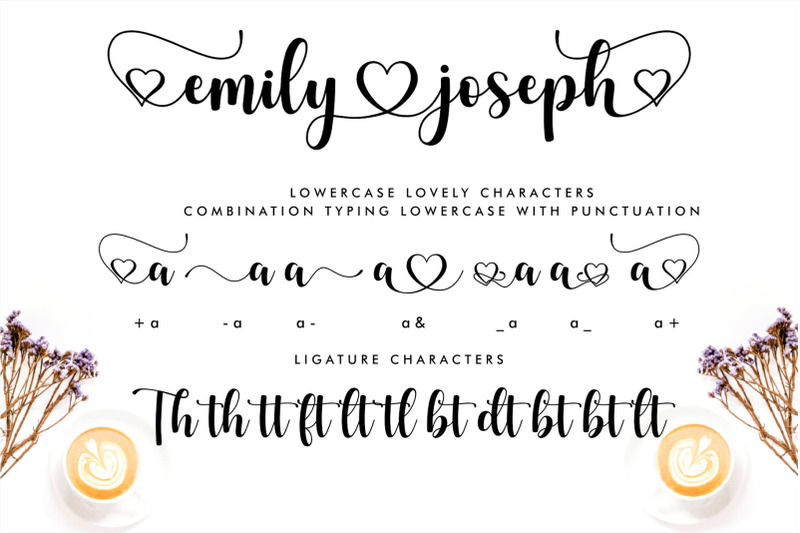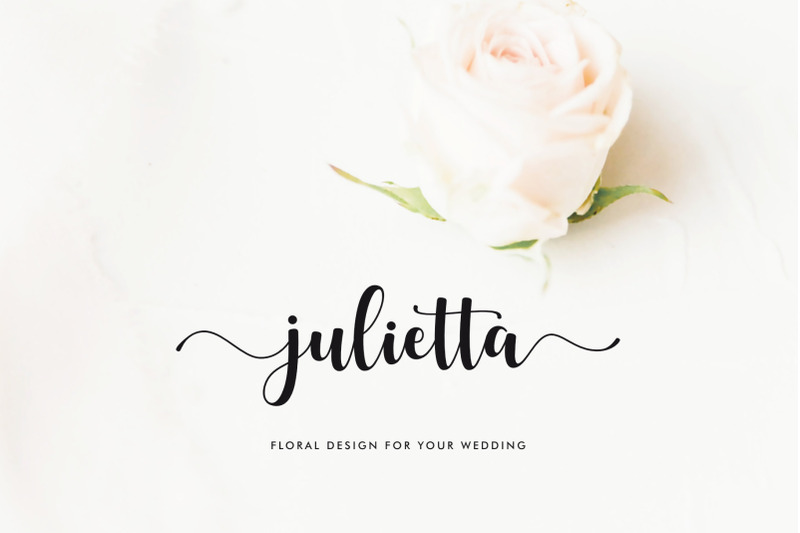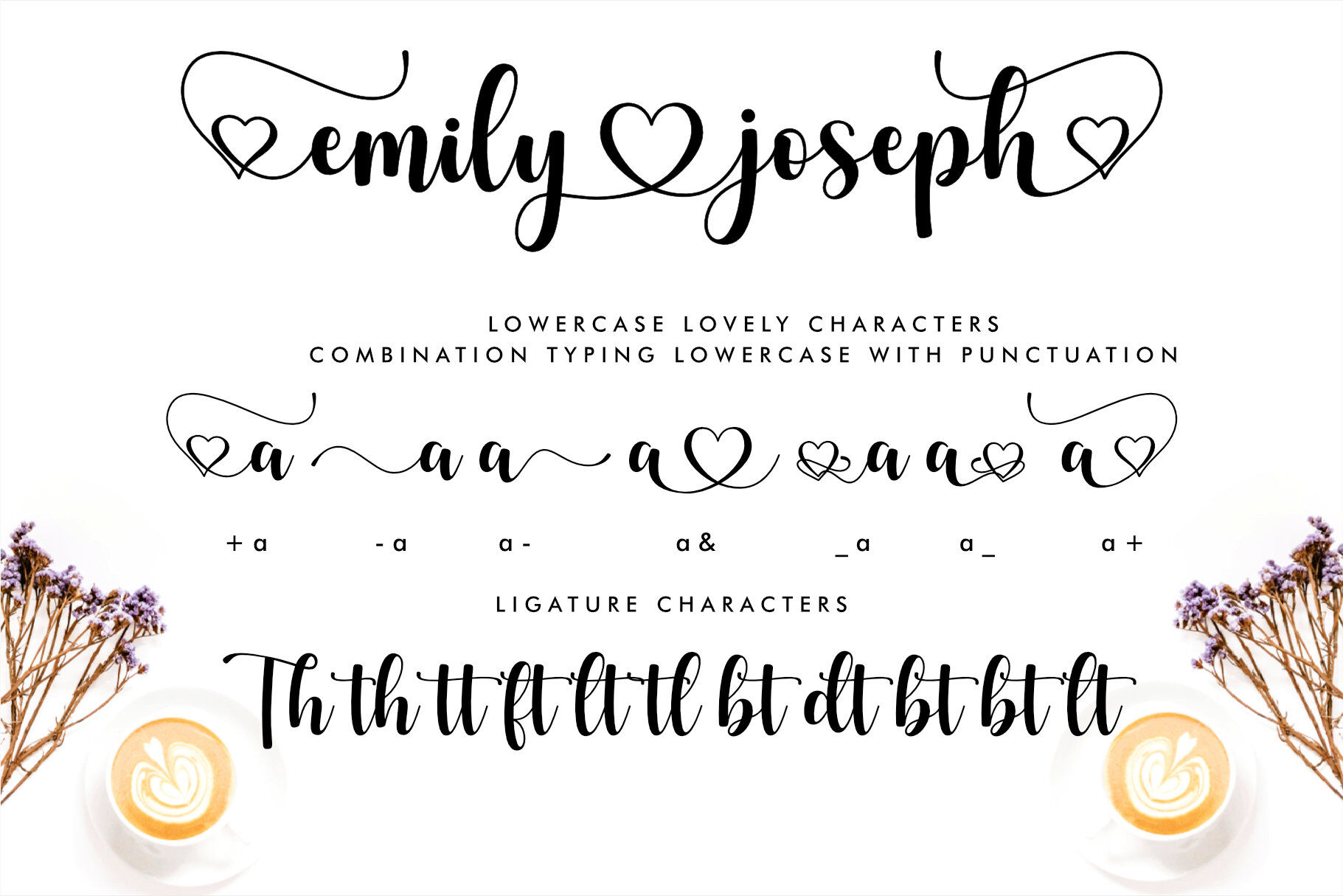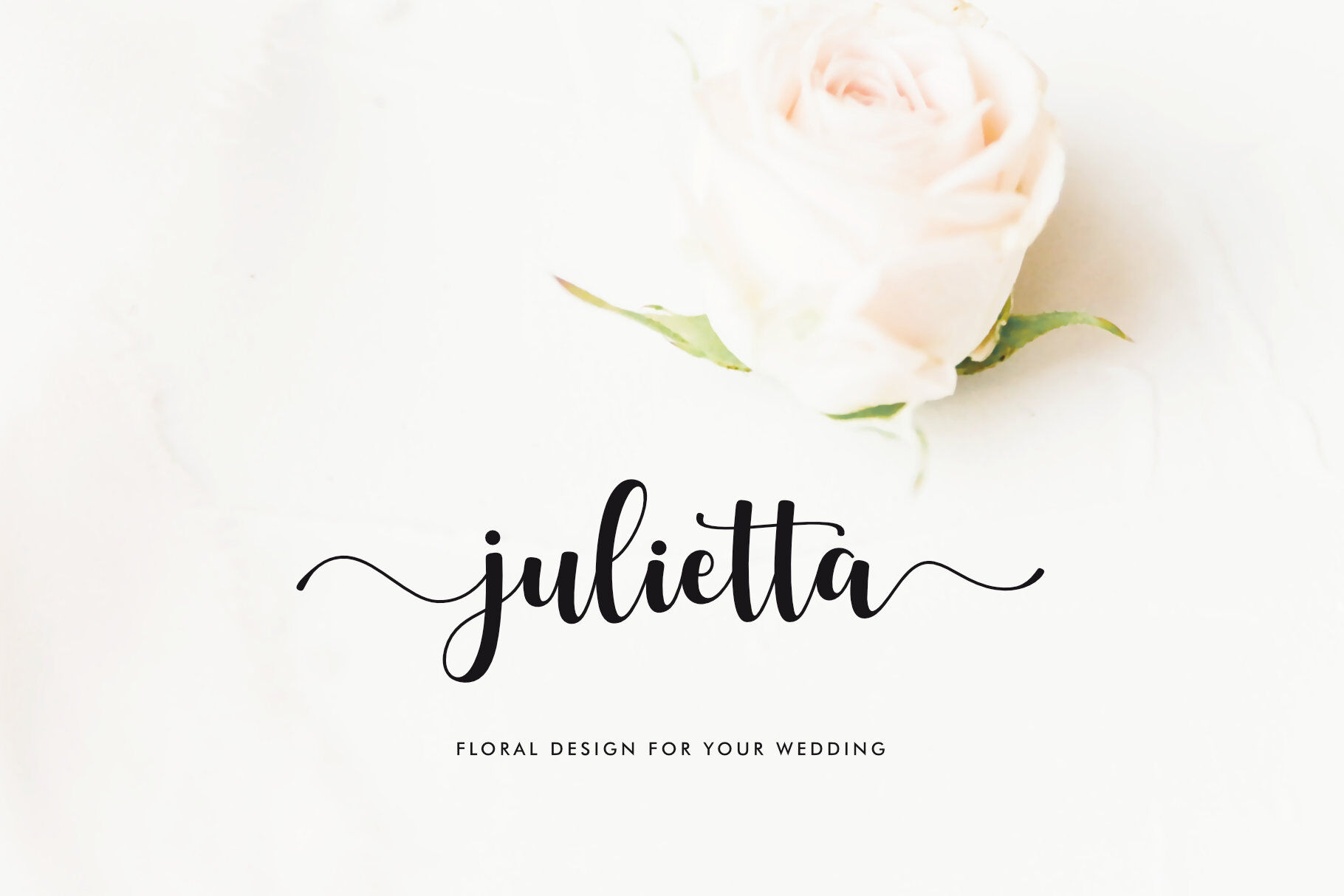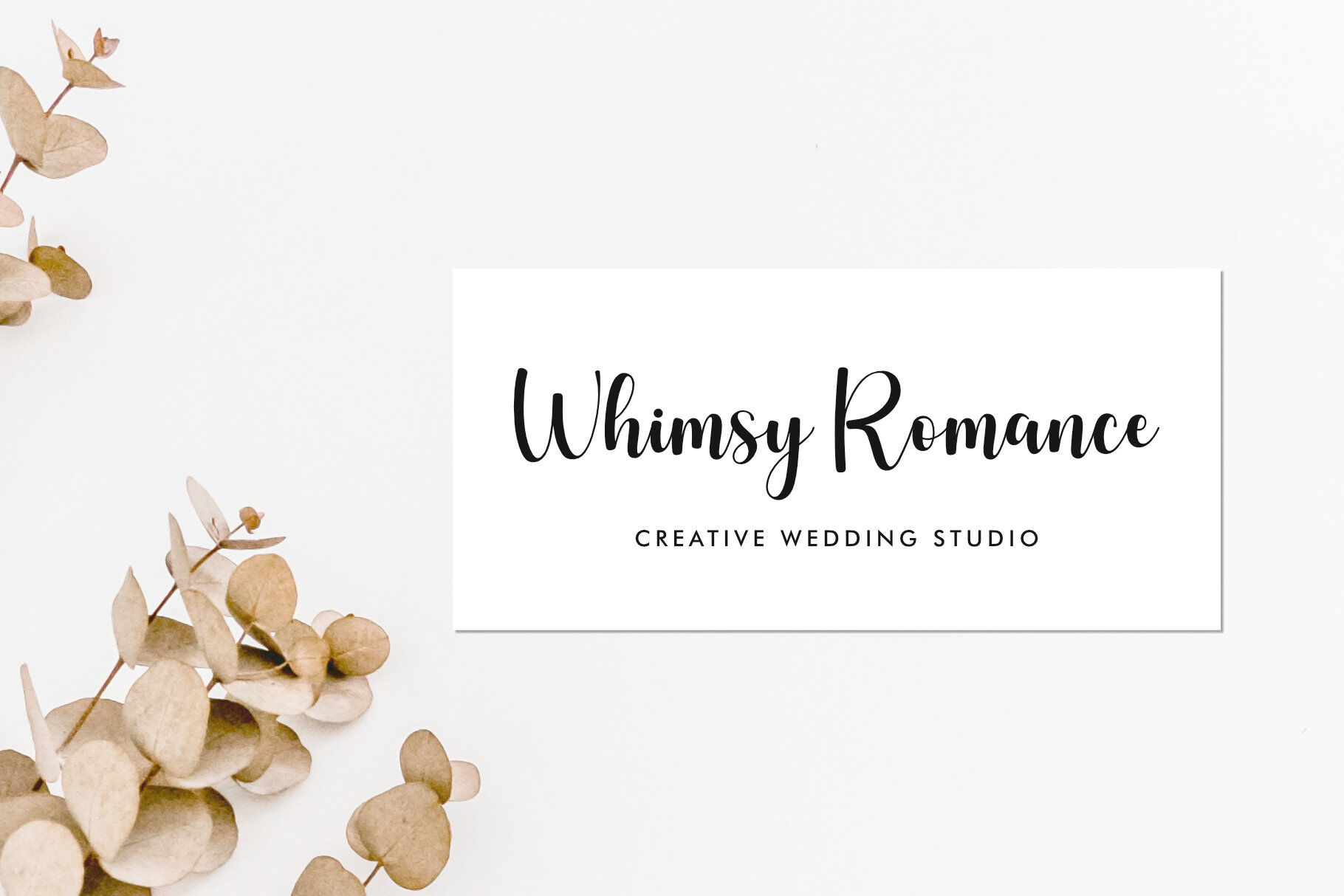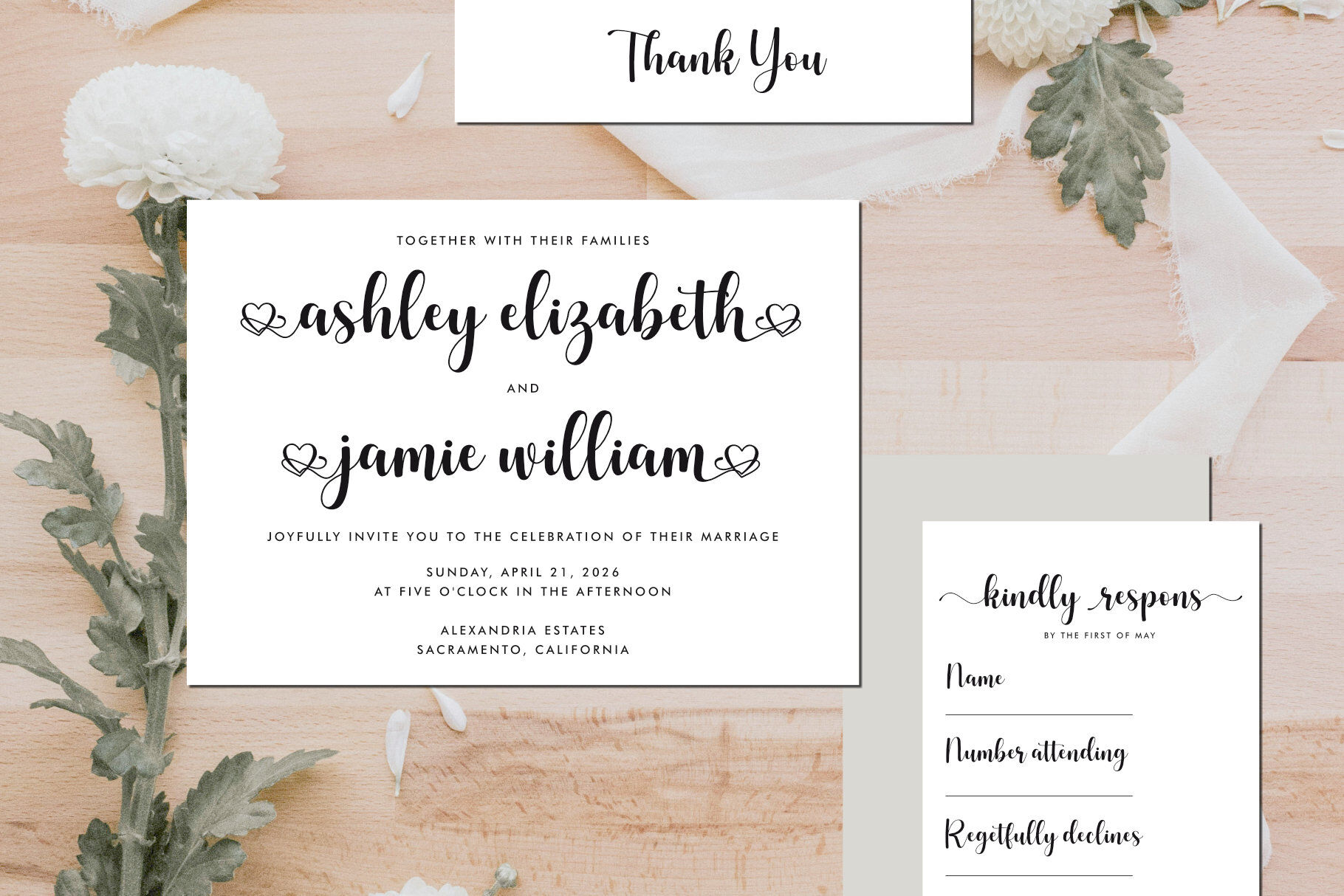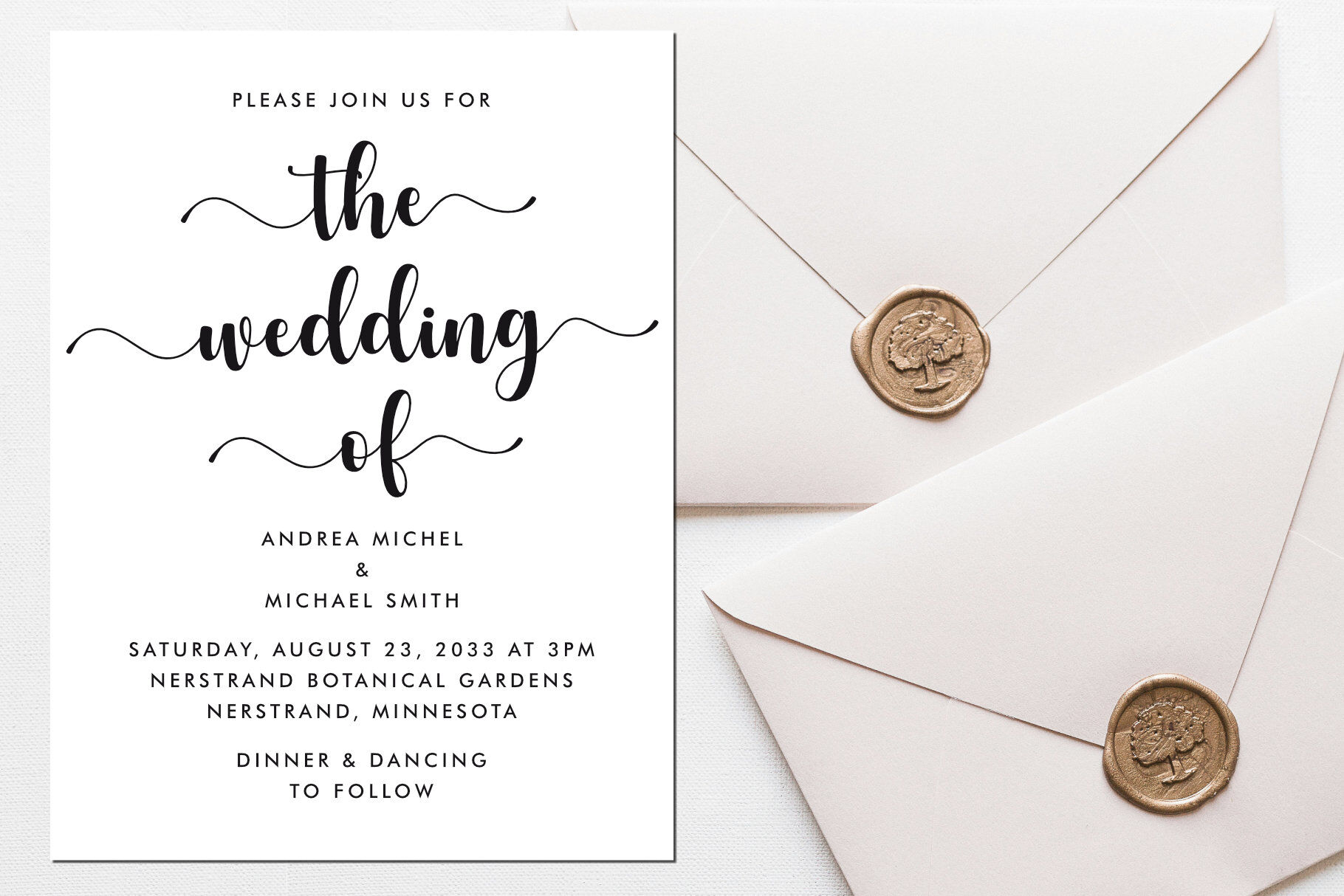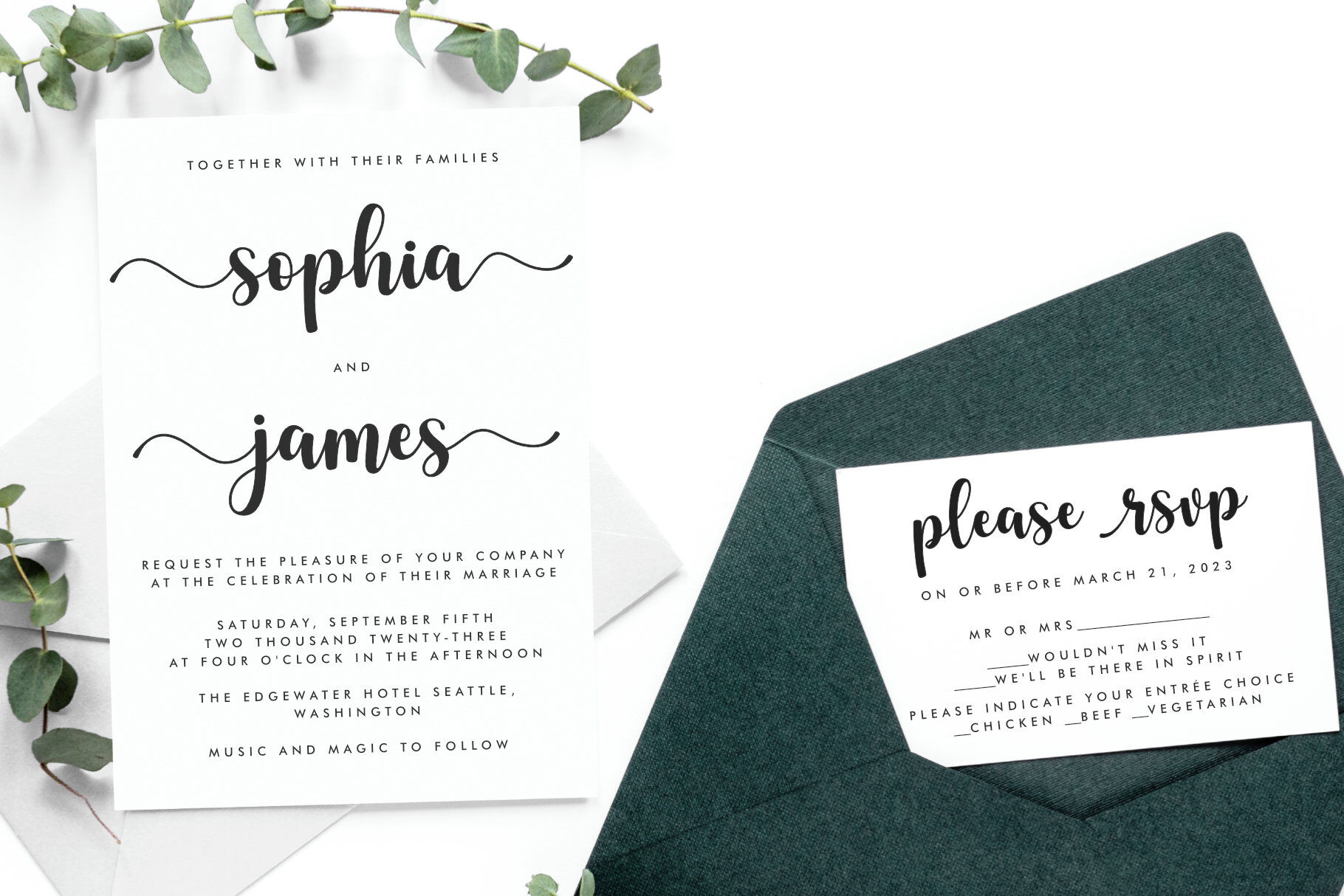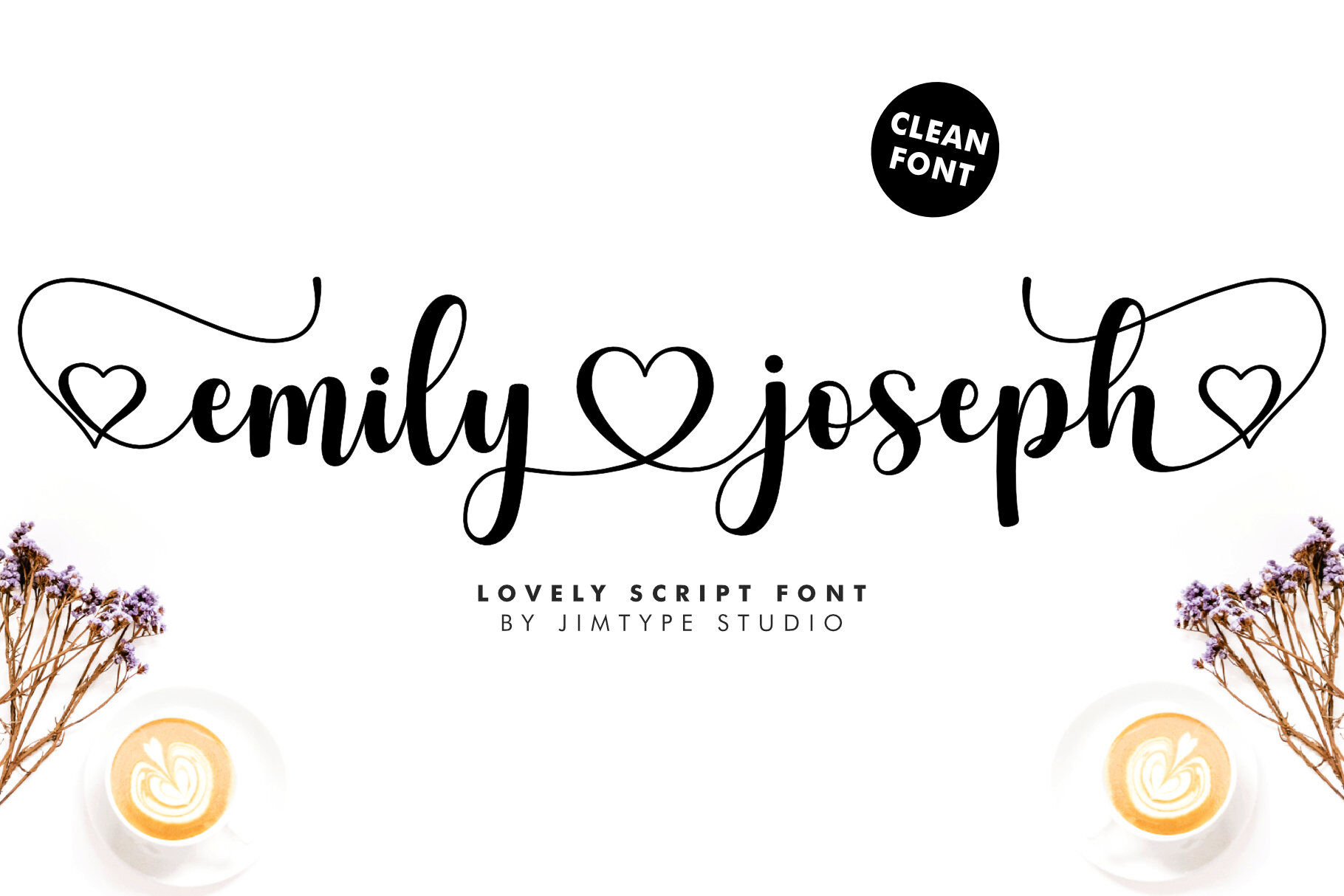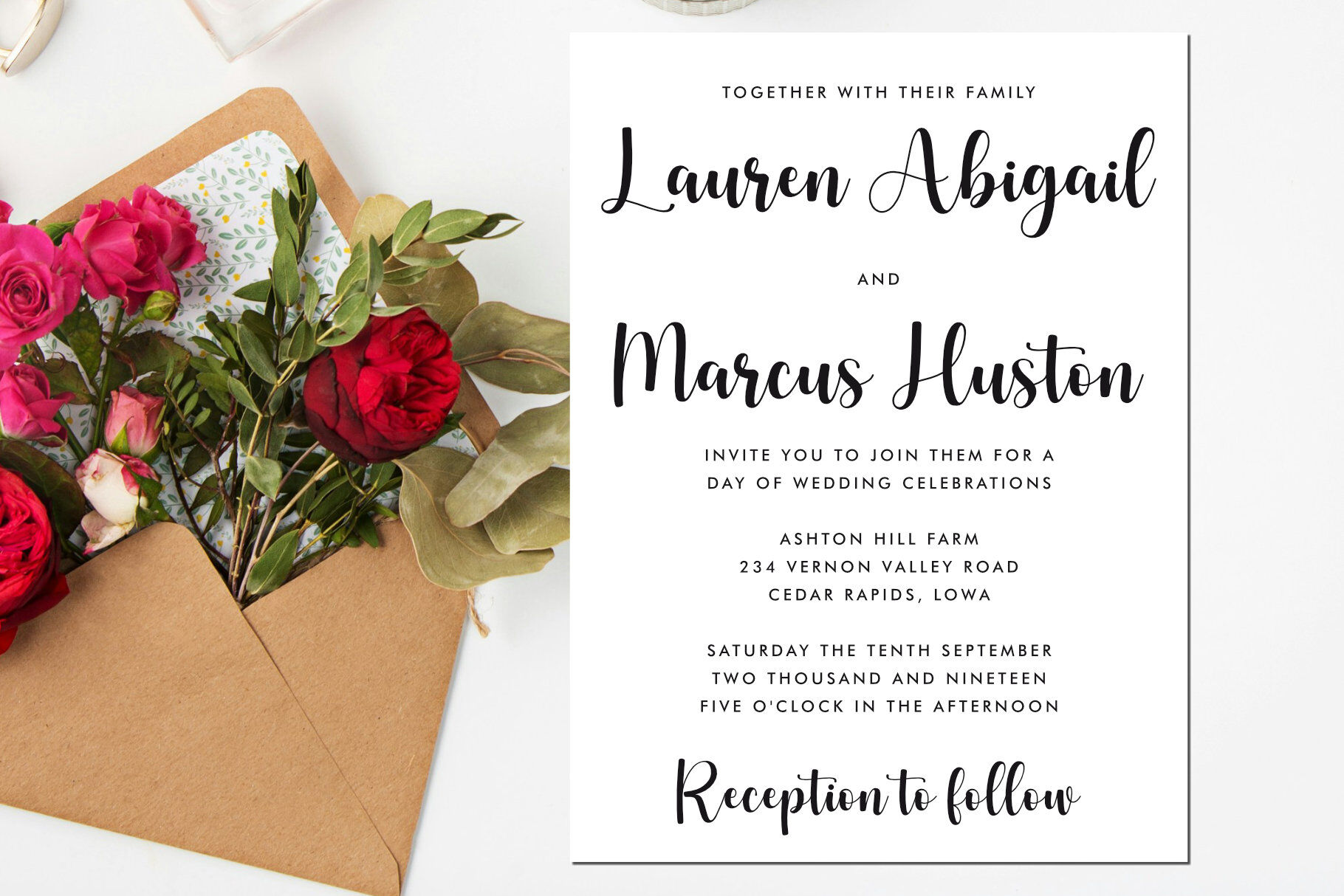
Emily Joseph - Lovely - Valentine Font
A new font for those of you who want your name engraved with a heart. Emily Joseph is a script font with subtle heart curves, clean lines, and a refined font. Designed to connect the letters with a natural heart while maintaining a feminine character. This beautiful script font is perfect for wedding invitations or engraving your and your partner's names as a keepsake. It can also be used for logos, branding, watermarks, save-the-date cards, and feminine branding. Inside the File: Emily Joseph (OTF,TTF, WOFF, WOFF2) Thank you so much We hope you enjoy and are happy creating! ~ Jimtype Studio